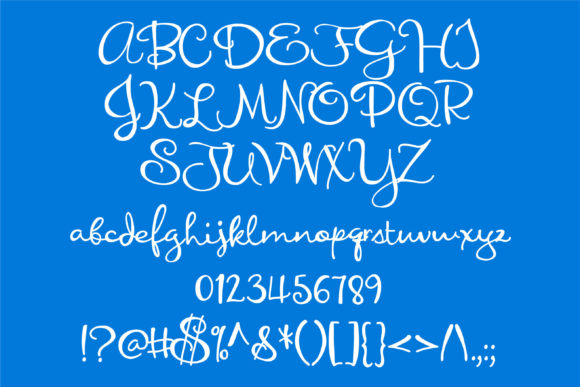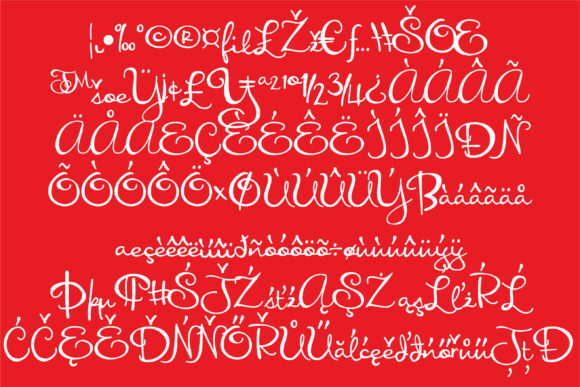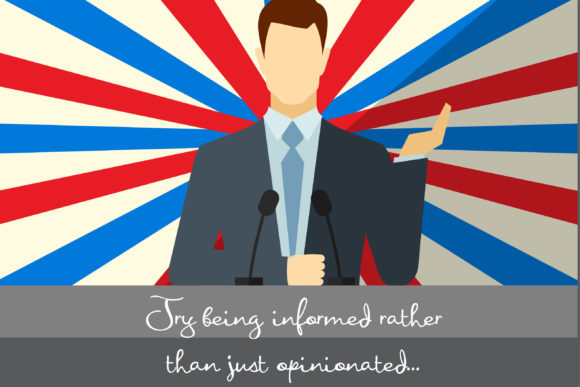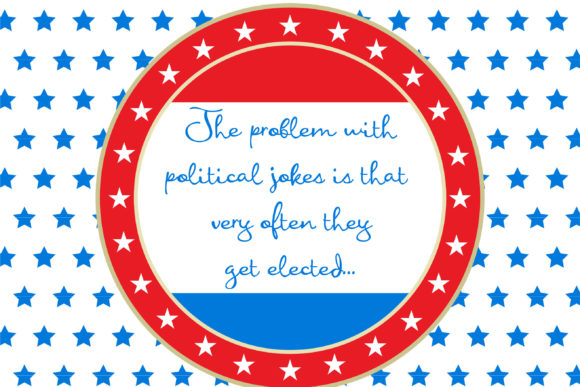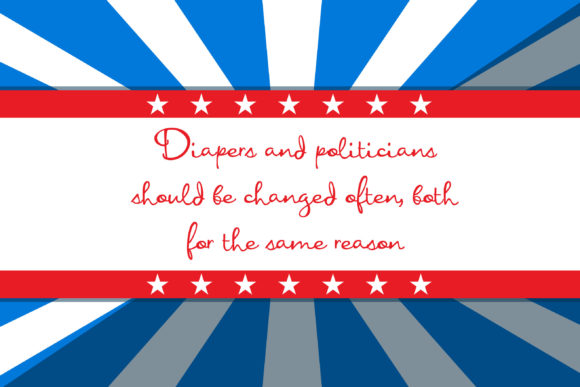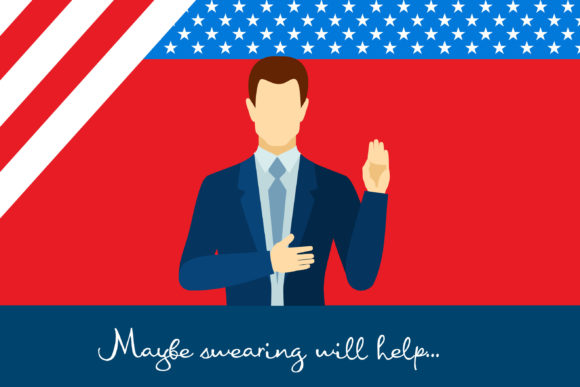
Congress Font: Elevate Your Designs with Elegance and Sophistication
Congress is a stunning round lettered and chic script font that has been masterfully designed to become a true favorite among designers and crafters. With its unique blend of elegance and sophistication, this font has the potential to bring each of your creative ideas to the highest level. In this article, we’ll dive into the world of Congress Font, exploring its features, benefits, and uses, as well as provide tips and inspiration for incorporating it into your designs.
A Brief Overview of Congress Font
Congress Font is a beautifully crafted script font that boasts a distinctive round lettered and chic style. Its elegant and refined aesthetic makes it perfect for a wide range of design applications, from branding and advertising to packaging and digital media. Whether you’re looking to create a luxurious and high-end feel or a playful and creative vibe, Congress Font is the perfect choice.
Key Features of Congress Font
- Round Lettered and Chic Design: Congress Font features a unique round lettered and chic design that sets it apart from other script fonts.
- Elegant and Refined Aesthetic: This font boasts an elegant and refined aesthetic that’s perfect for creating sophisticated and high-end designs.
- Highly Versatile: Congress Font is highly versatile and can be used for a wide range of design applications, from print to digital media.
- Easy to Read and Understand: Despite its elegant and refined design, Congress Font is easy to read and understand, making it perfect for body text and headlines.
Benefits of Using Congress Font
So why choose Congress Font for your next design project? Here are just a few benefits of using this amazing font:
- Adds Elegance and Sophistication to Your Designs: Congress Font adds a touch of elegance and sophistication to your designs, making them stand out from the crowd.
- Perfect for Branding and Advertising: This font is perfect for branding and advertising applications, where a high-end and luxurious feel is desired.
- Great for Digital Media: Congress Font is also great for digital media, including social media graphics, website headers, and more.
- Easy to Pair with Other Fonts: This font is easy to pair with other fonts, making it perfect for creating unique and visually appealing typography combinations.
Tips for Using Congress Font
Here are a few tips for using Congress Font in your designs:
- Use it as a Headline Font: Congress Font is perfect for use as a headline font, where its elegant and refined design can really shine.
- Pair it with a Sans-Serif Font: Pair Congress Font with a sans-serif font for a classic and timeless look.
- Experiment with Different Colors and Textures: Don’t be afraid to experiment with different colors and textures to add depth and interest to your designs.
Inspiration and Ideas for Using Congress Font
Still looking for inspiration and ideas for using Congress Font? Here are a few examples of how you can use this amazing font in your designs:
- Wedding Invitations and Stationery: Congress Font is perfect for wedding invitations and stationery, where a elegant and refined aesthetic is desired.
- Luxury Brand Packaging: This font is also great for luxury brand packaging, where a high-end and sophisticated feel is desired.
- Digital Media and Social Graphics: Congress Font is perfect for digital media and social graphics, including social media headers, website headers, and more.
In conclusion, Congress Font is a stunning round lettered and chic script font that’s perfect for designers and crafters looking to add a touch of elegance and sophistication to their designs. With its highly versatile design, ease of use, and range of applications, this font is sure to become a true favorite among creative professionals. So why wait? Download Congress Font today and start elevating your designs to the highest level!